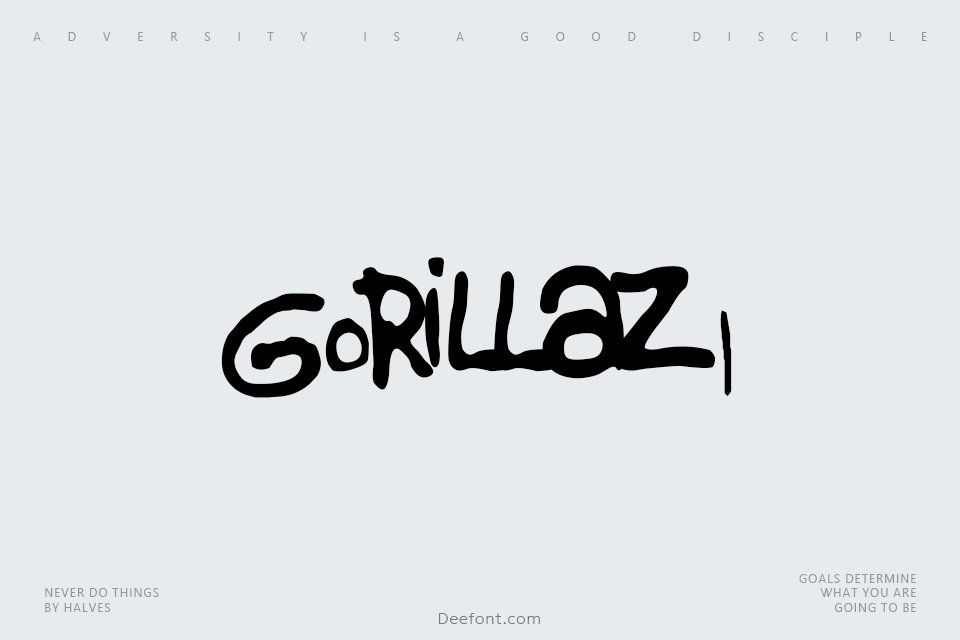
Gorillaz 1 Font
This is the famous Gorillaz font.
Since there was only a very ugly version, i decided to make a smooth one: from Gorillaz2 to Gorillaz1 !
Note: this font doesnt support symbols which are NOT: letters or numbers